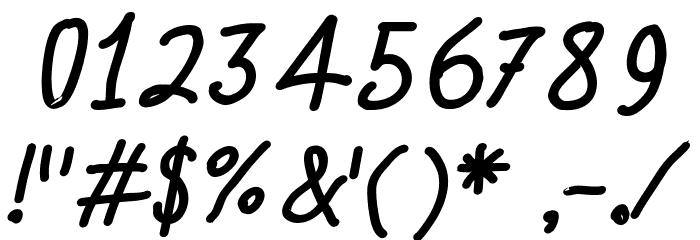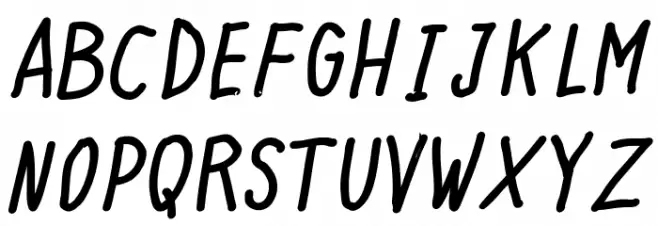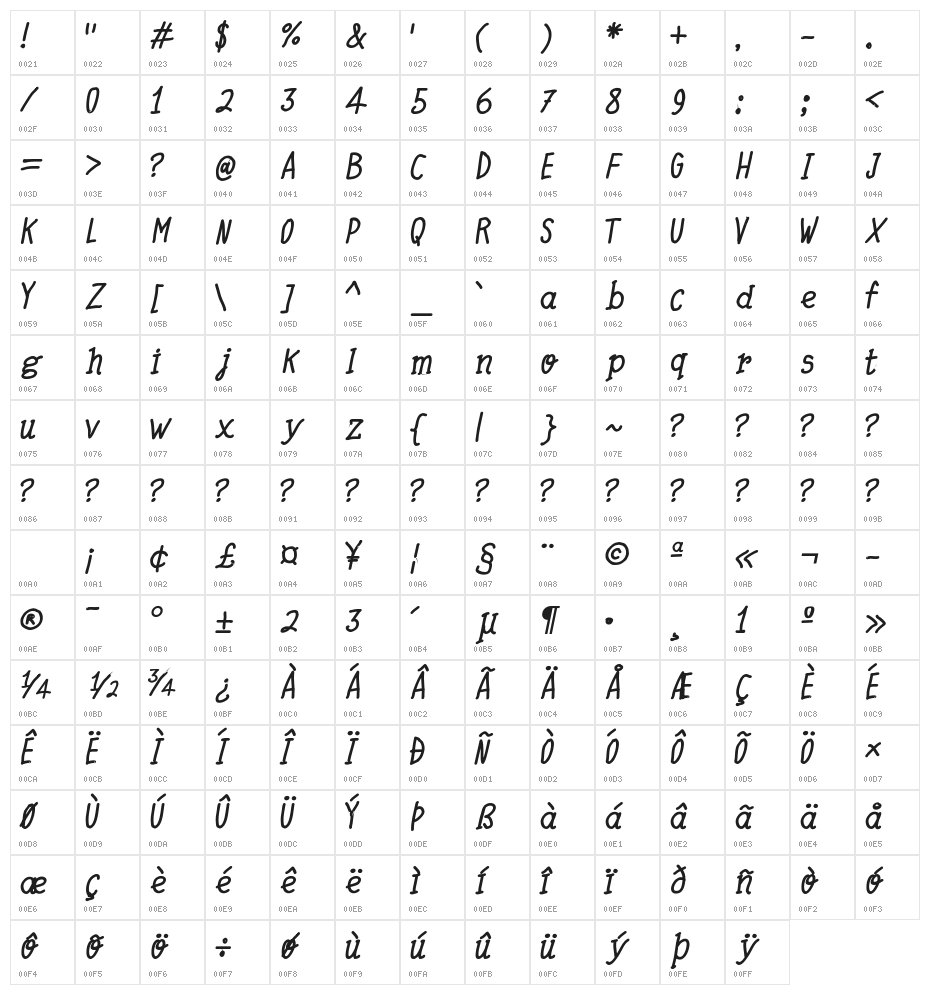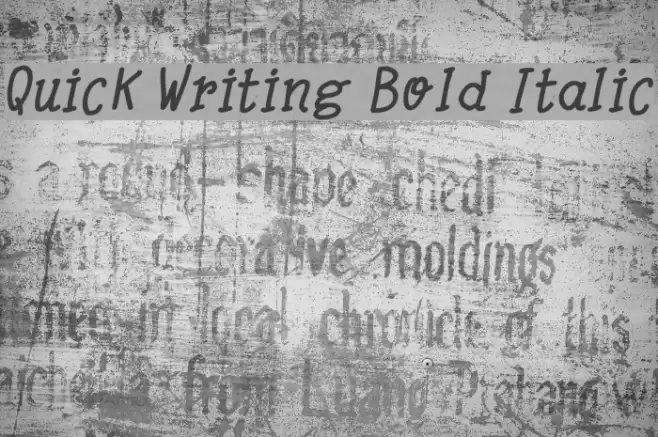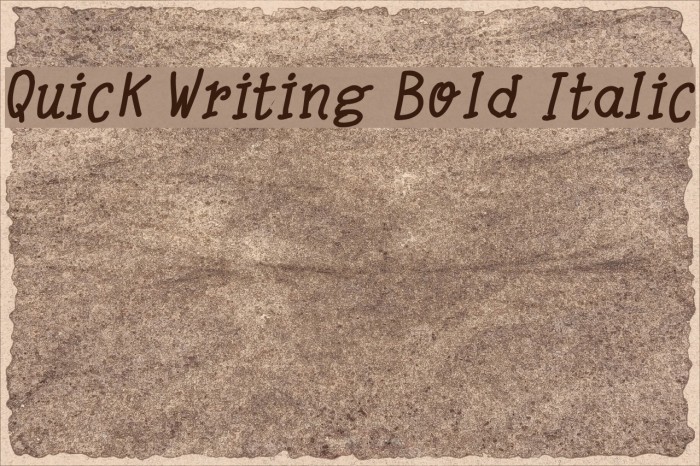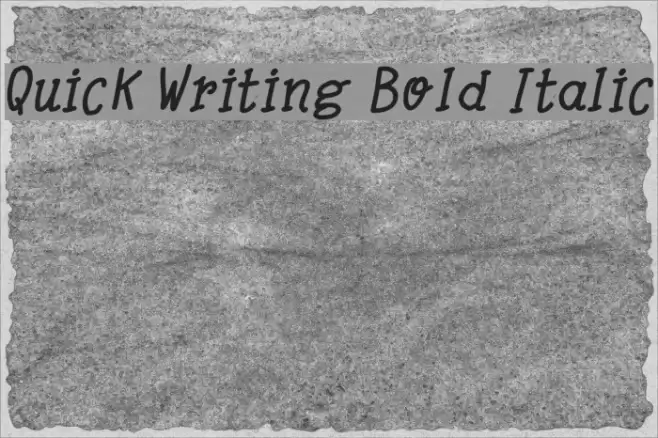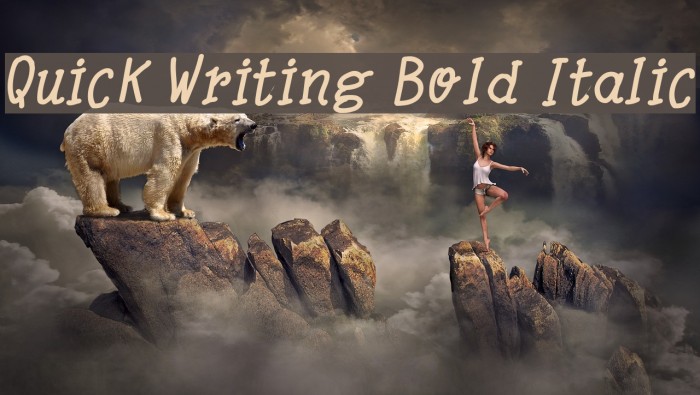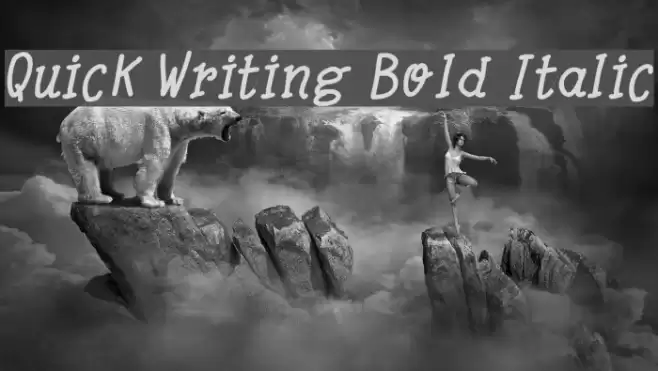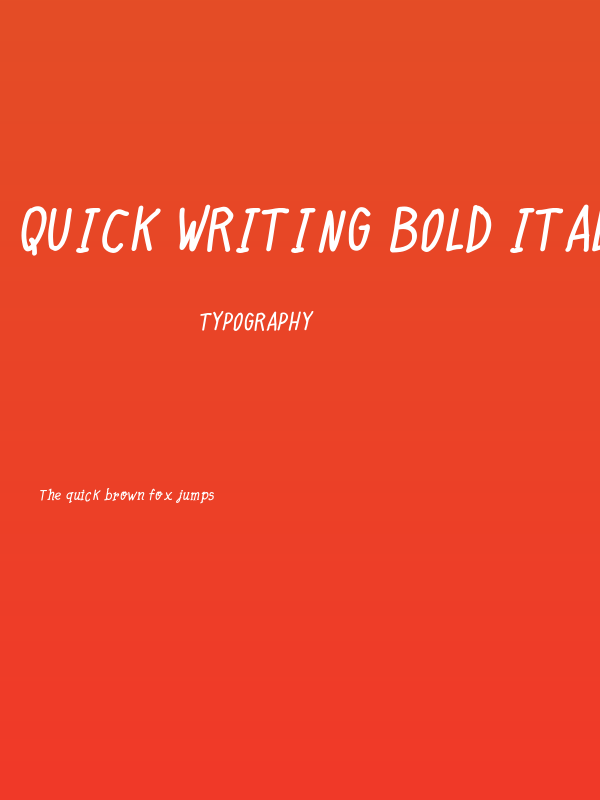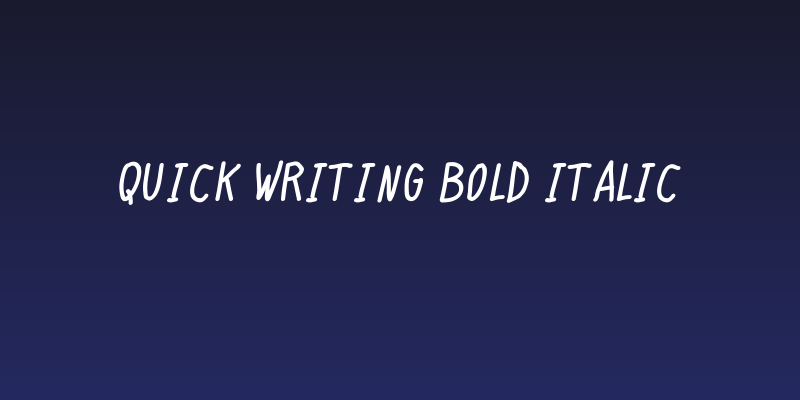
Quick Writing Bold Italic Font
Quick Writing Bold Italic Description
This font exhibits a lively and dynamic handwritten style, characterized by its bold and italicized form. The letters are slightly slanted, adding a sense of motion and fluidity. The strokes are thick and consistent, providing a strong visual impact. The uppercase letters maintain a uniform height, while the lowercase letters feature unique, playful curves, enhancing the font's casual and approachable appearance. The numerals are well-integrated with the alphabet, sharing the same boldness and style. Special characters are clearly defined, maintaining the overall aesthetic. This font is ideal for projects that require a personal touch or an informal, friendly tone.
| Overall Style | Casual, Dynamic |
| Proposed Projects | Greeting cards, personal branding, casual invitations, social media graphics, and creative posters. |